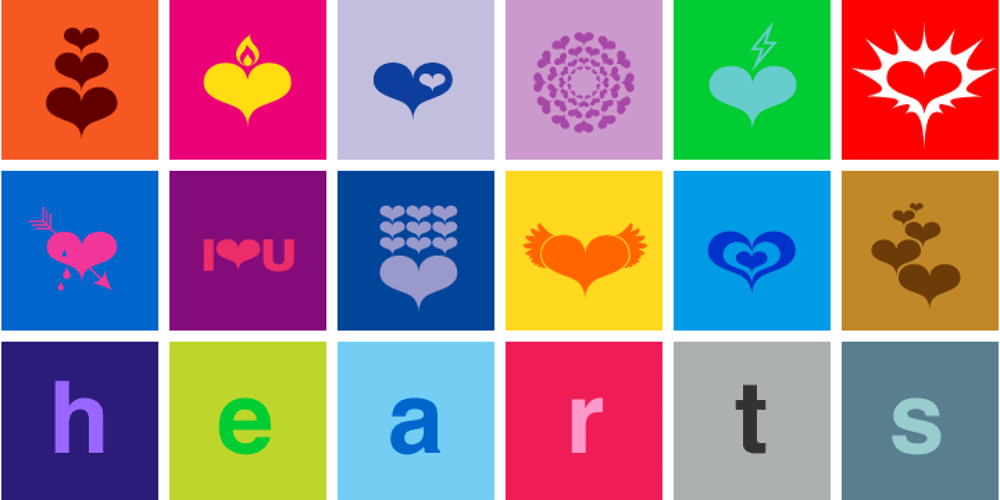
Hearts Font Family was designed by published by kapitza. Hearts contains 1 styles and family package options. Hearts contains 70 groovy heart illustrations and repeat patterns. It’s great for designing unique and personal t-shirts, greeting cards, gifts and even wrapping paper. You can use individual characters as illustrations and create repeat patterns and borders by selecting a character and pressing the same key over again. Easy!